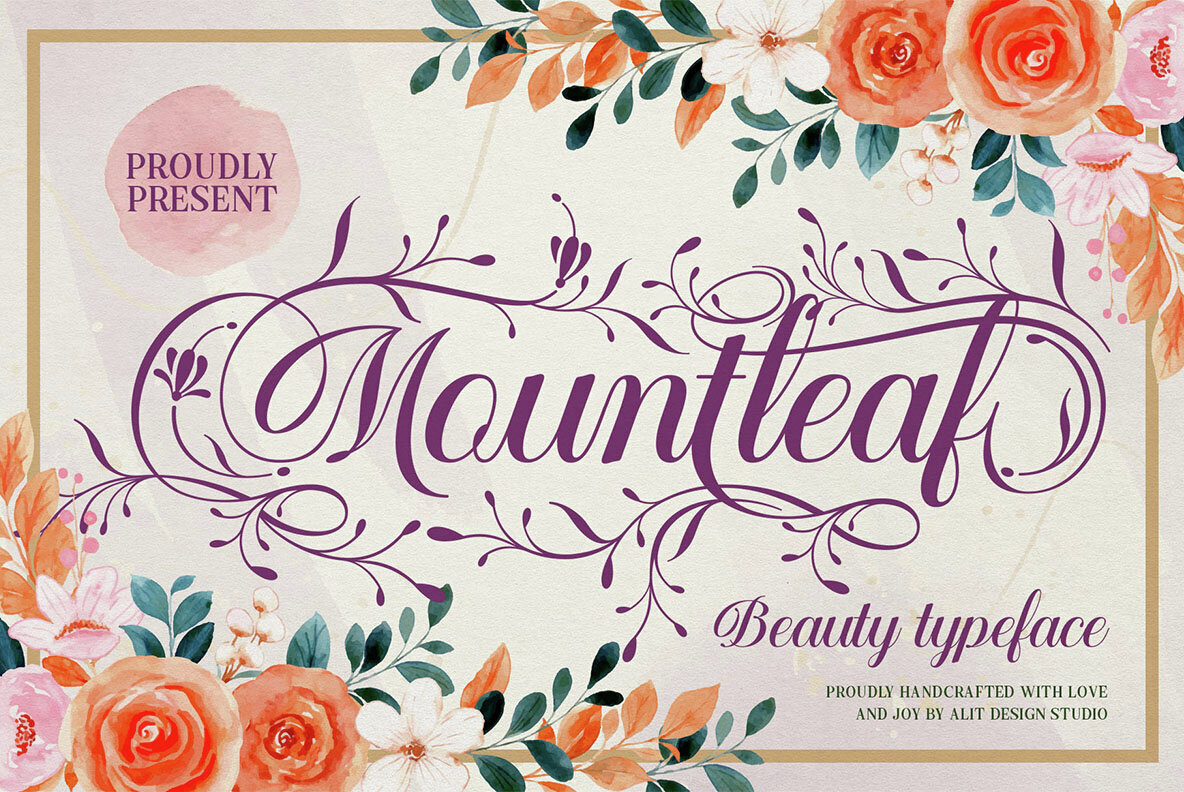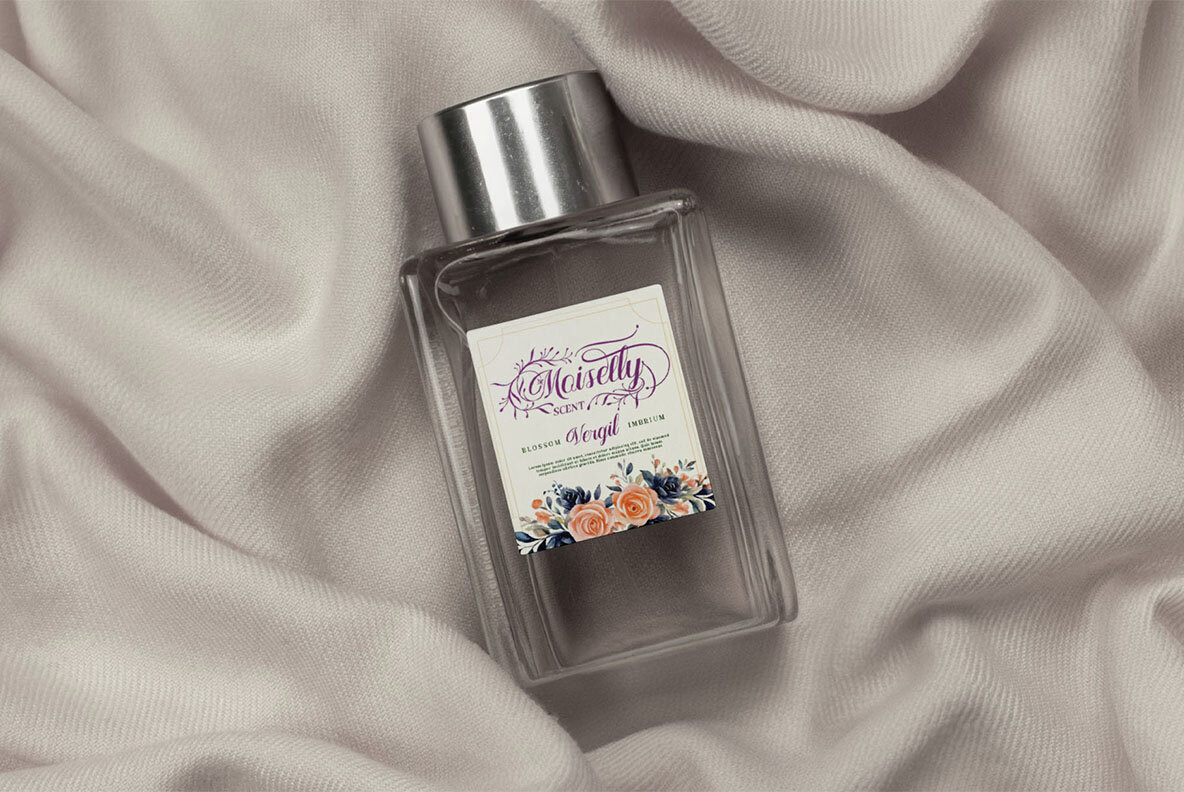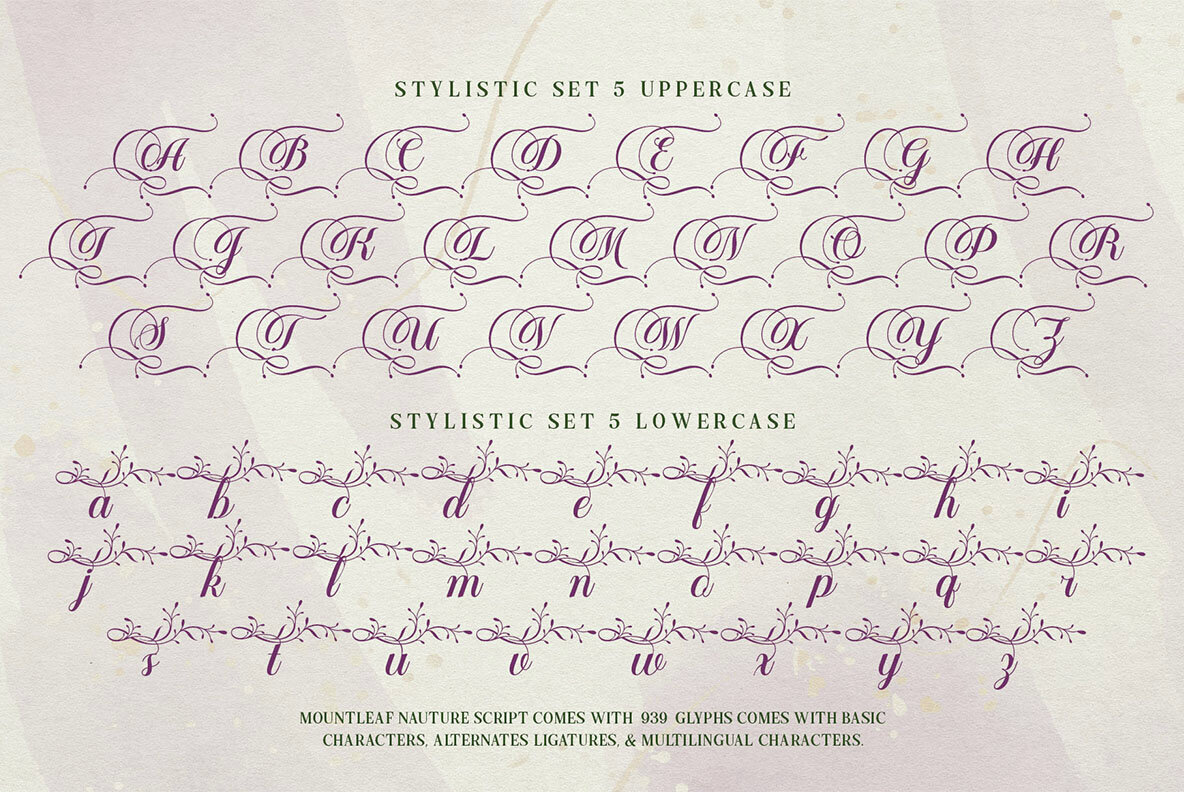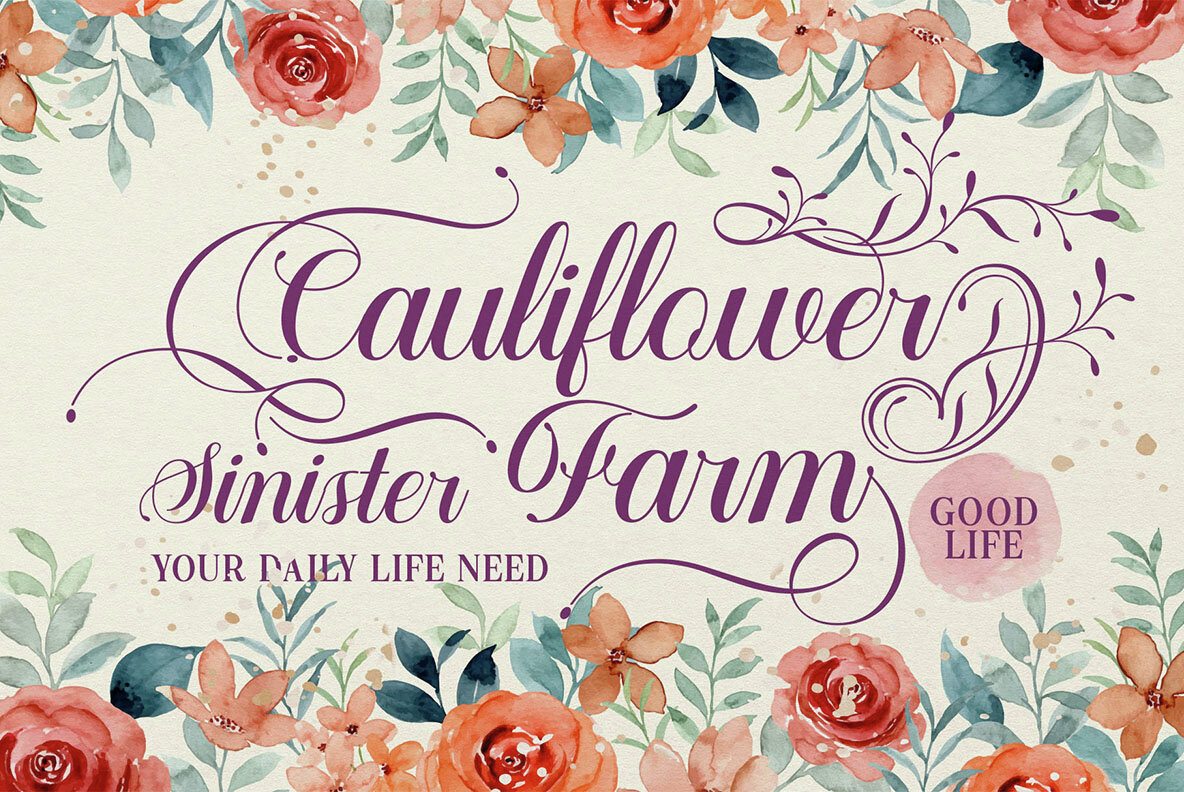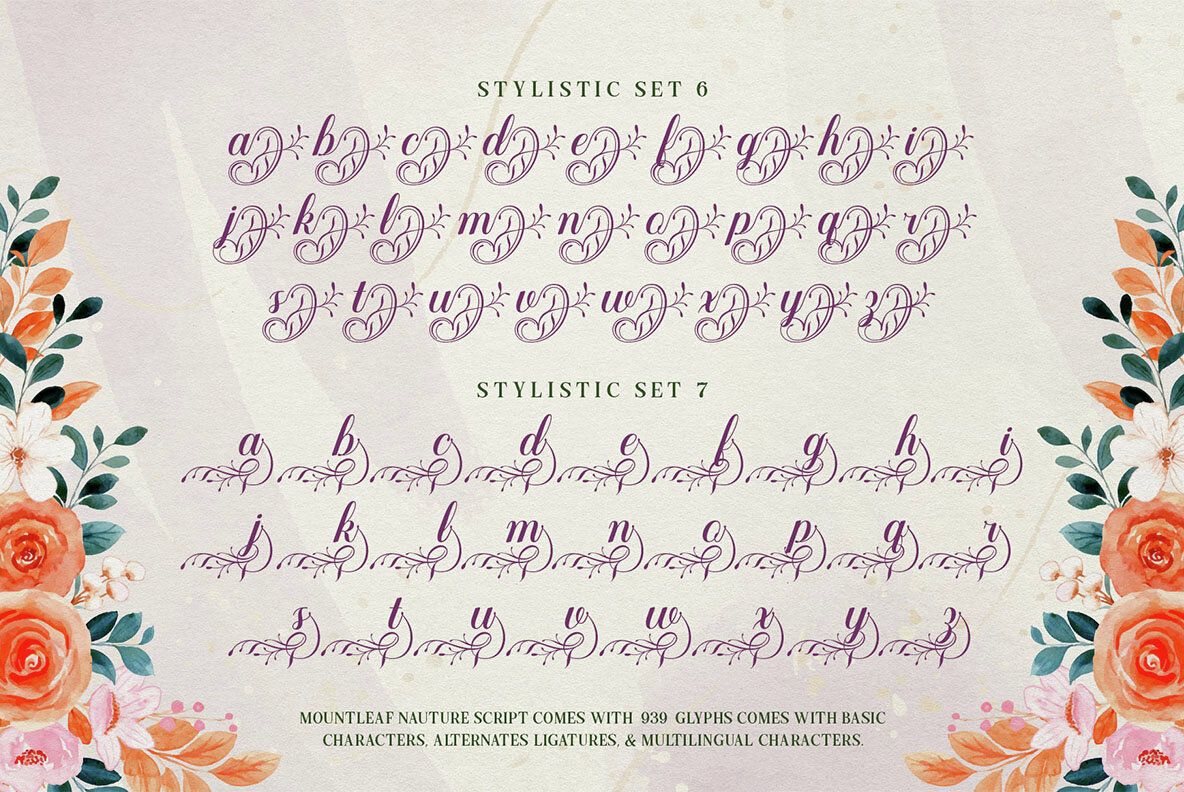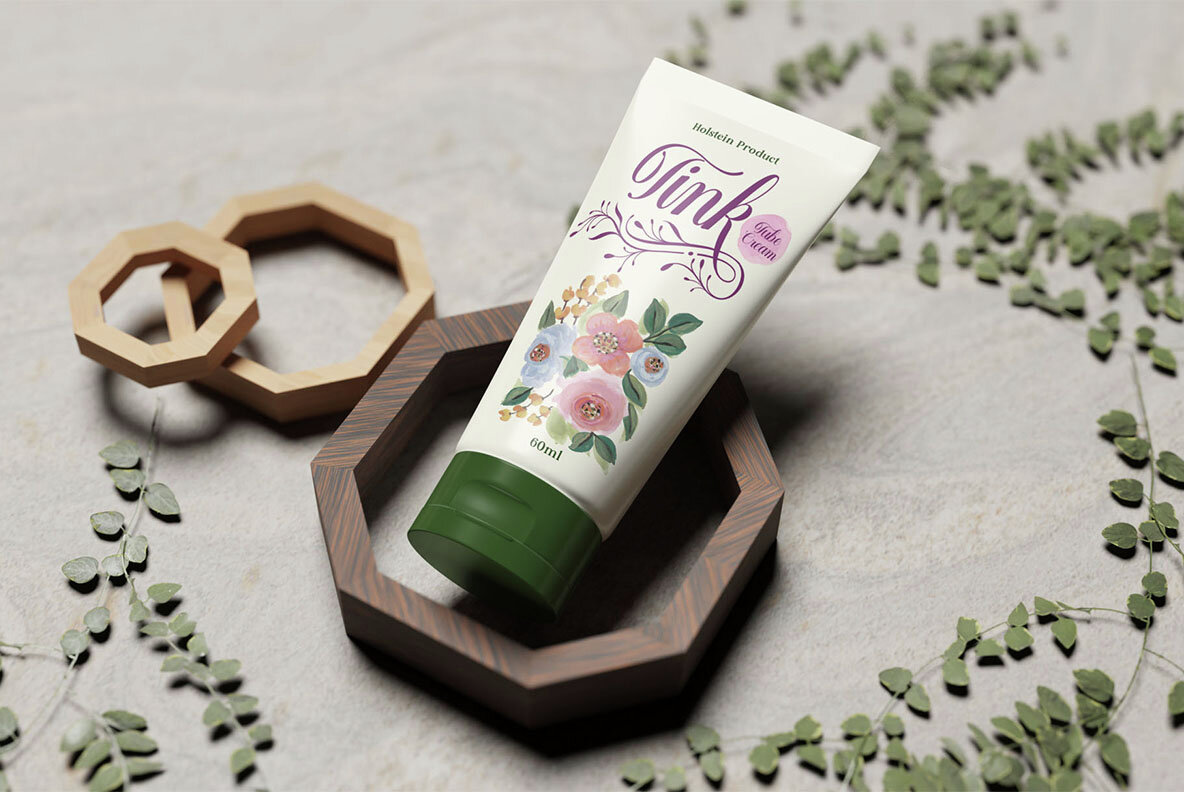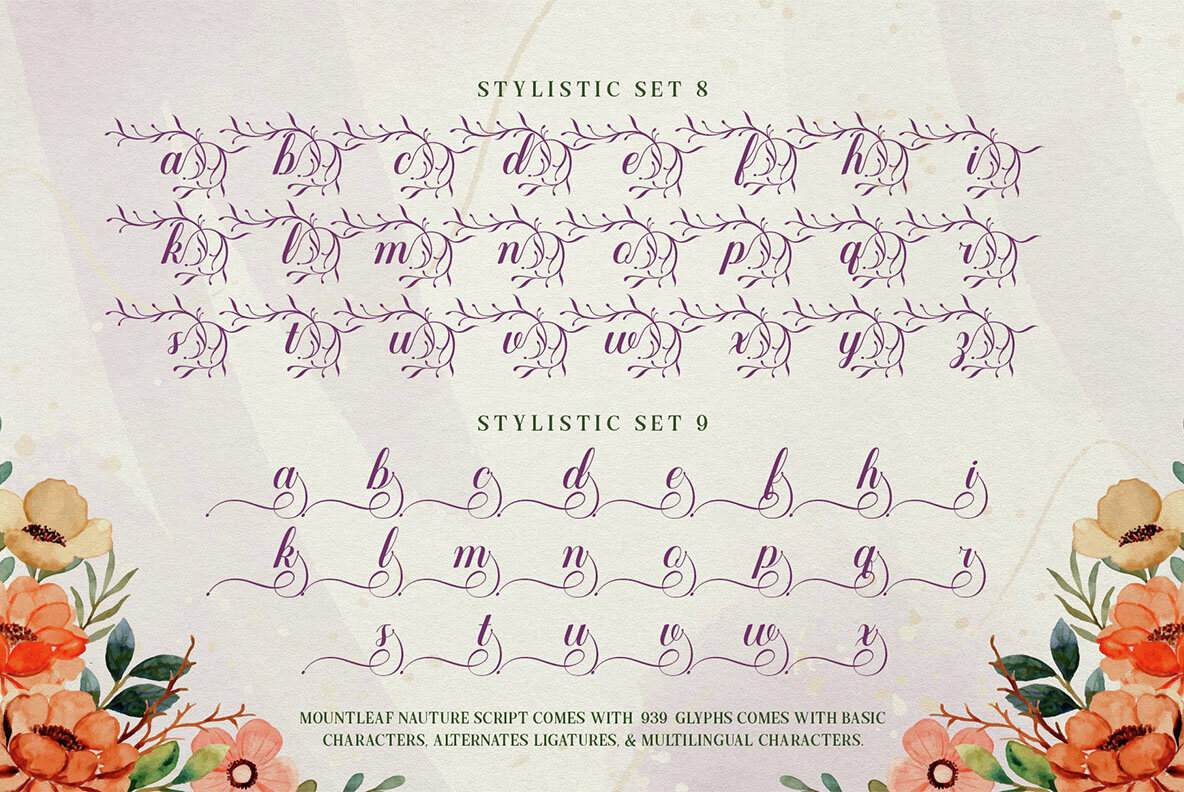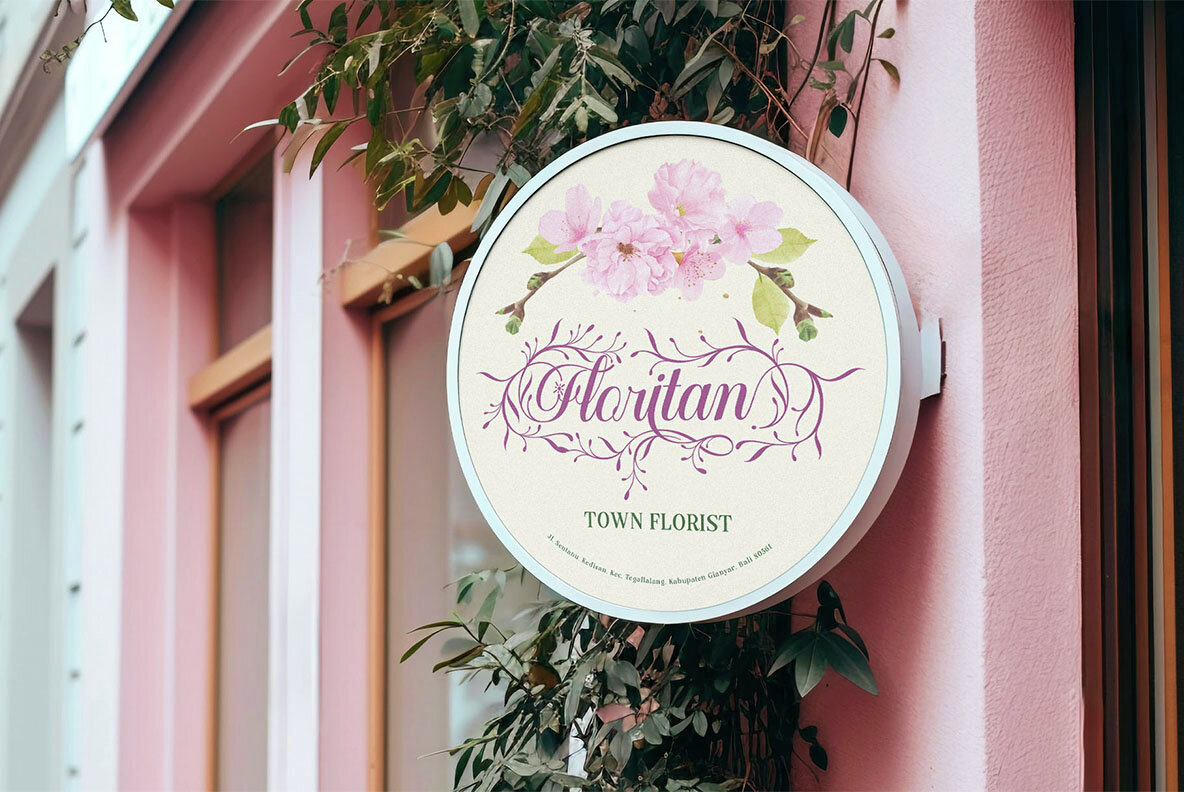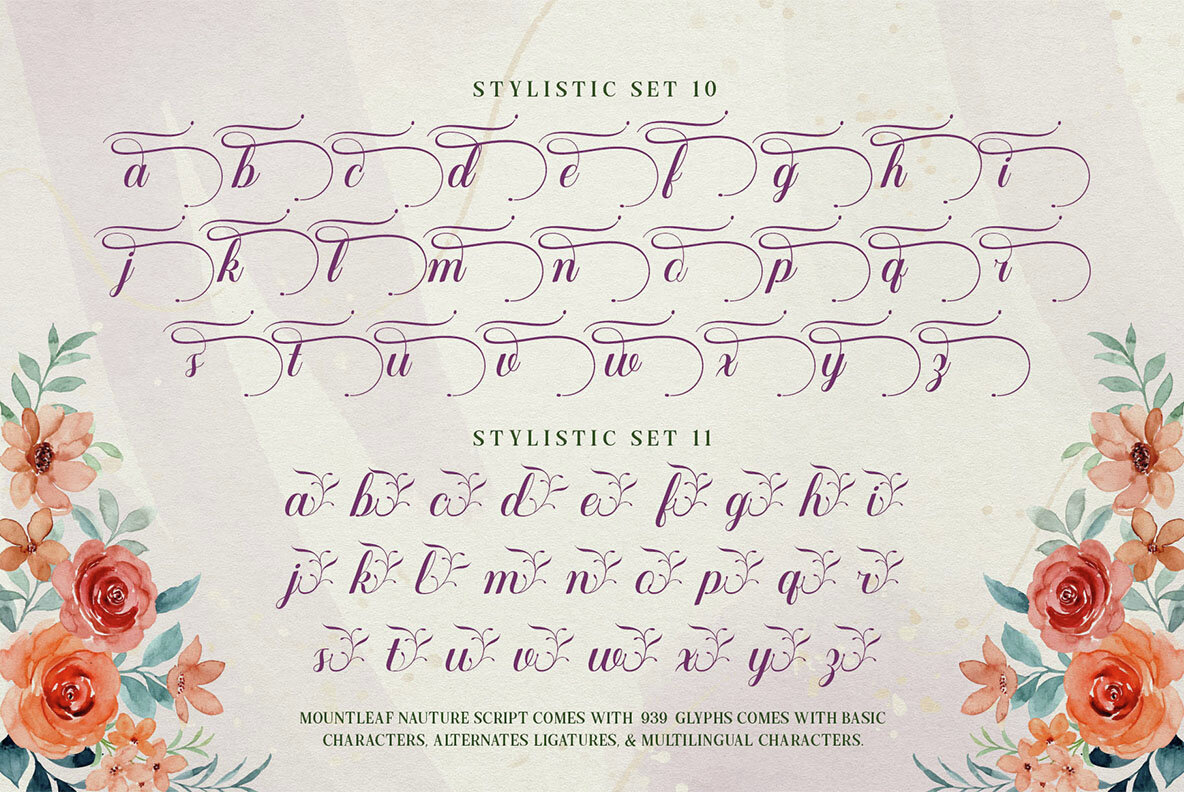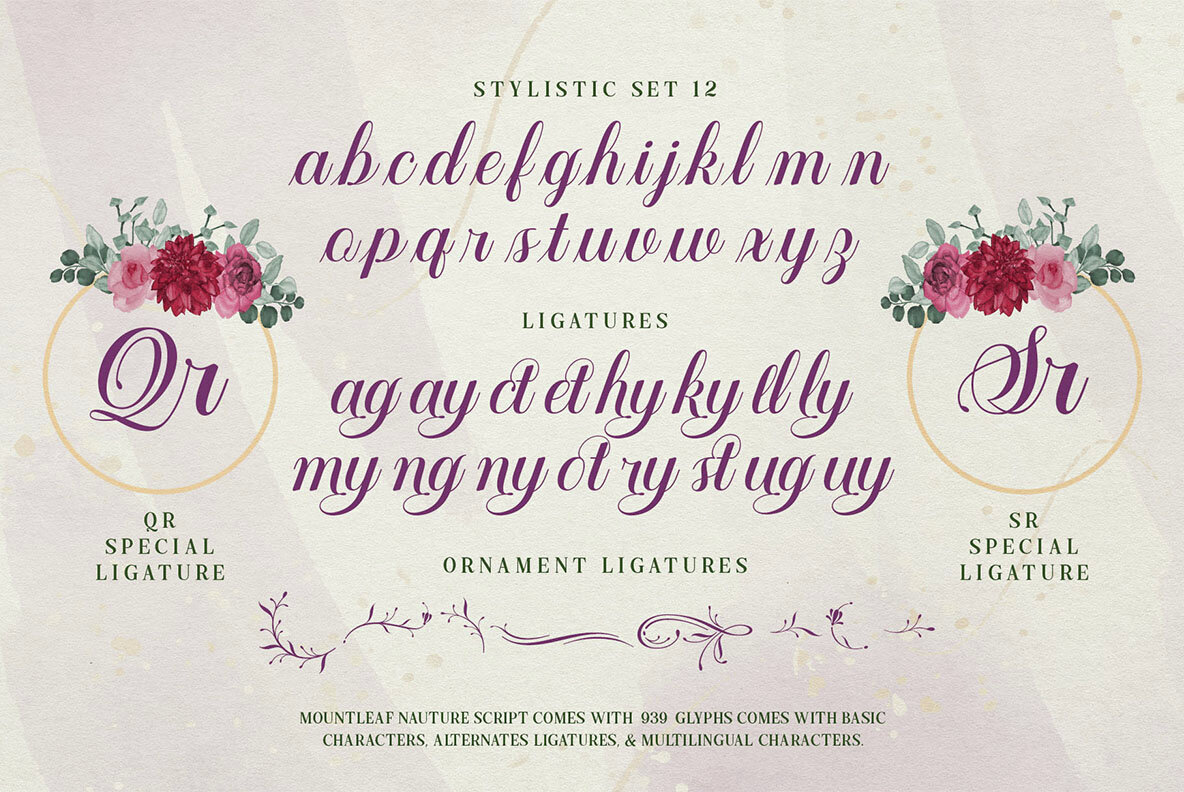
Mountleaf Font
Mountleaf Regular
Mountleaf—a beautiful typeface where elegance blossoms effortlessly. Expertly handcrafted, this script captures the essence of nature through its graceful lines and intricate swashes, entwining like blooming vines adorned with charming flowers. Mountleaf infuses creative projects with a touch of romance, sophistication, and natural wonder. Inspired by the gentle whispers of a secret garden, Mountleaf suits designs requiring a personal, artistic flair. Each fluid stroke and elaborate detail transforms words into masterpieces. Mountleaf is versatile, ideal for branding, logotypes, wedding invitations, stationery, social media, packaging, greeting cards, book covers, and quotes—perfect for projects needing a handcrafted elegance and floral touch. Let Mountleaf transform your work into botanical art. To access the full range of stylistic alternates and ligatures, design software supporting OpenType features, such as Adobe Illustrator, Adobe Photoshop, InDesign, or CorelDRAW, is required.Mountleaf Typeface: An Elegant Floral Script